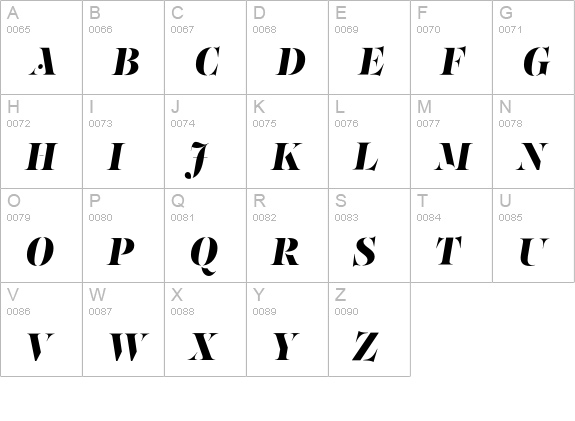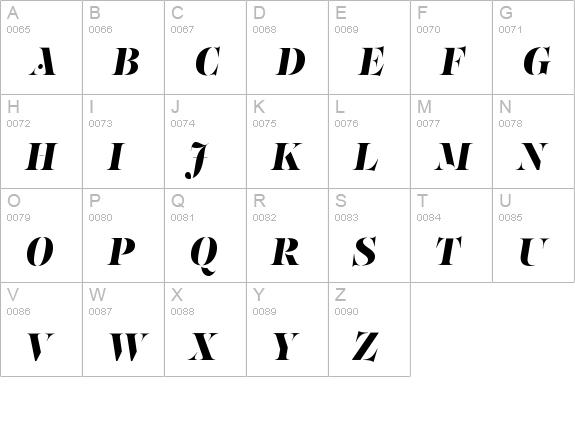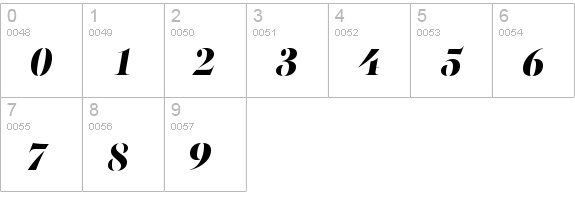
PFRegalStencilPro-BlackItalic is a striking and bold stencil font that exudes elegance and sophistication. Its sleek design and intricate details make it perfect for adding a touch of luxury to any project. The italicized version of this font adds a sense of drama and flair, making it stand out from the crowd. And the best part? PFRegalStencilPro-BlackItalic is available for free download at FontsMarket.com. This means you can easily access this premium font without any cost, allowing you to elevate your designs without breaking the bank. Whether you're working on a branding project, editorial design, or any creative endeavor, PFRegalStencilPro-BlackItalic is sure to make a statement and leave a lasting impression. Download it today and add a touch of sophistication to your next project!